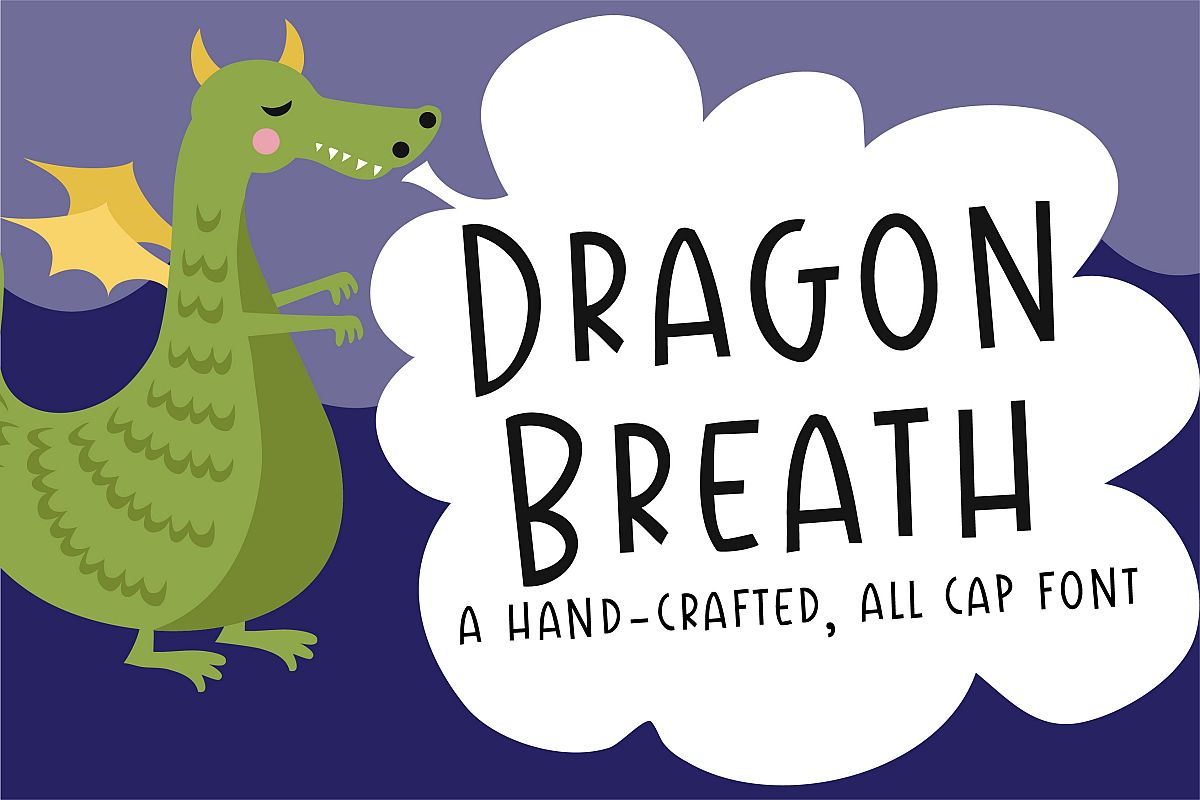
This casual hand-printed has no true lowercase. Rather it has a taller and bigger uppercase that falls below the baseline and smaller "lowercase". The overall feel is very comic book dialog style.